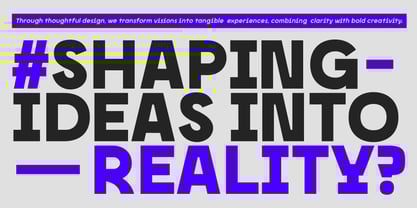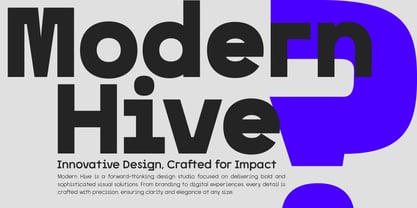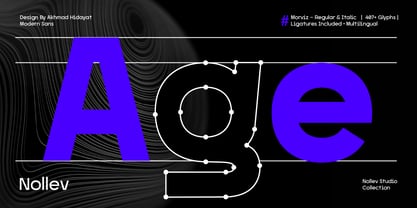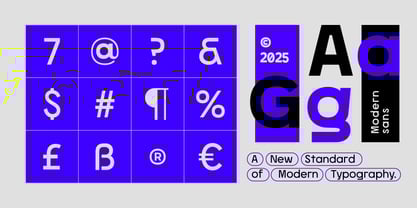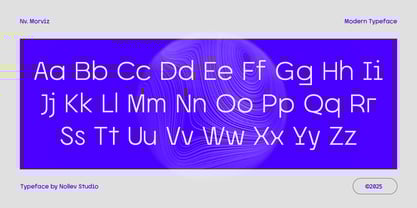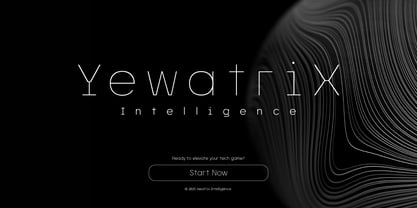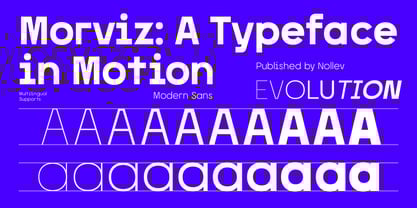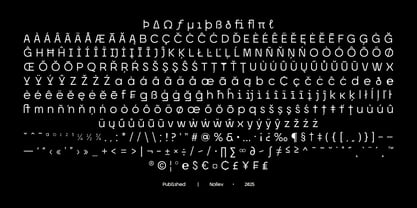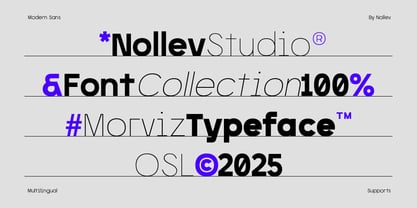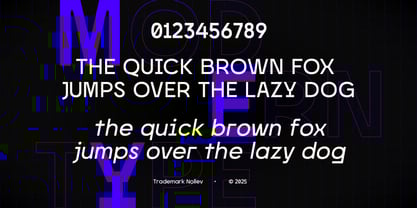
Morviz
by Nollev
The Morviz Font Family was designed by Akhmad Hidayat and published by Nollev. Morviz contains 19 styles and family package options.
Morviz Sans Variable is a modern sans serif typeface designed with flexibility and clarity in mind. With a single, compact file, you gain access to the full range of weights from Thin to Black, along with smooth interpolation between styles — all in one variable font.
Perfect for branding, UI/UX, web design, and editorial projects, Morviz adapts seamlessly to both elegant and bold design needs.
🔤 Features:
• Variable weight axis (Thin → Black)
• Modern geometric design
• Clean spacing & proportional structure
• Multilingual support (90+ languages)
• Includes punctuation & symbols
• Perfect for responsive design, logos, interfaces, and print
With Morviz Sans Variable, you can fine-tune the perfect weight for every purpose — from subtle elegance to striking impact — while keeping your workflow efficient and your files lightweight.
Designers: Akhmad Hidayat
Publisher: Nollev
Foundry: Nollev
Design Owner: Nollev